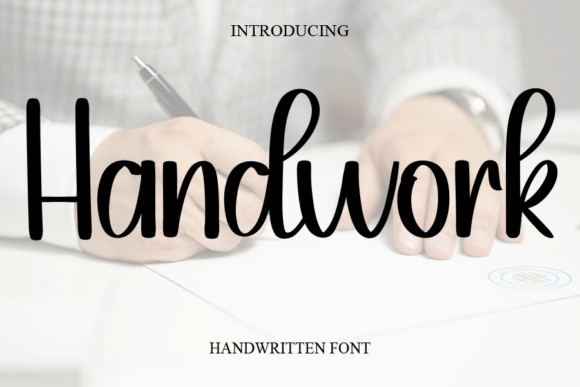
Have you ever found yourself staring at a blank page, trying to bring a concept to life? The blank canvas can be intimidating, but sometimes it’s in those moments of uncertainty that we stumble upon something truly special. For me, it’s often the discovery of a new font that sets the creative wheels in motion.
One such font that has captured my heart is the Handwork Font – a sweet and cursive handwritten font that exudes a sense of joy and romance. Perfect for adding a touch of whimsy to your designs, the Handwork Font is an ideal choice for branding, logos, wedding projects, and more. Its elegant yet casual feel makes it a valuable asset for designers looking to elevate their work and make it truly stand out.
Handwork Font Key Features
- Font family: Handwork is a unique, hand-drawn font with a warm and elegant feel, perfect for creative projects.
- Character count: Includes 248 glyphs, covering a wide range of languages, including Latin, Greek, and Cyrillic scripts.
- Font size: Available in 6 font sizes, ranging from 12pt to 72pt, ideal for use in various design applications.
- Resolution: Designed for high-resolution displays, with a resolution of up to 300 DPI, ensuring crisp and clear text rendering.
- Unique characteristics: Handwork features a distinctive, hand-drawn style with subtle imperfections, giving it a personal and human touch.
Handwork Font Review
As a designer, I was excited to try out the Handwork Font. Initially, I was drawn to its unique and elegant design. ✨ The font’s script-style letterforms and ornate flourishes give it a touch of sophistication and luxury.
One of the things that works well for Handwork Font is its versatility. ✨ It can be used for a wide range of applications, from wedding invitations to branding materials. The font’s high level of detail and intricate design elements make it perfect for creating visually stunning pieces.
Here are some of the things that I like about Handwork Font:
- Unique and elegant design
- Perfect for creating visually stunning pieces
- High level of detail and intricate design elements
- Versatile and can be used for a wide range of applications
However, there are also some limitations to consider: ⚠️
- The font may be too ornate for some applications, making it difficult to read.
- The intricate design elements may be challenging to edit or customize.
- The font may not be suitable for body text, due to its complexity and size.
Overall, I think Handwork Font is a great choice for designers who want to add a touch of elegance and sophistication to their work. However, it may not be the best choice for every project, and it’s essential to consider the font’s limitations before using it.
Handwork Font is perfect for creating whimsical and rustic designs. Use it for:
- Food and drink labels
- Home decor and craft projects
Remember to experiment with different font sizes, colors, and styles to achieve the desired look.
Alternatives to Handwork Font
Playfair Display is a high-end, elegant serif font perfect for luxury brands and high-end products. It is ideal for use in invitations, business cards, and magazine covers.
Playfair Display is similar to Handwork Font in its elegant and sophisticated design, but it has a more refined and luxurious feel. While Handwork Font has a more rustic and vintage vibe, Playfair Display is more polished and refined.
Great Vibes is a modern, elegant script font ideal for use in wedding invitations, branding, and packaging. It has a relaxed, friendly feel that is perfect for creative and artistic projects.
Great Vibes is similar to Handwork Font in its elegant and sophisticated design, but it has a more modern and relaxed feel. While Handwork Font is more vintage-inspired, Great Vibes is more contemporary and fresh.
Carolyna Pro is a modern, elegant sans-serif font ideal for use in branding, packaging, and digital products. It has a clean, sophisticated design that is perfect for tech and fashion brands.
Q: Are there any font variations or styles available for the Handwork Font?